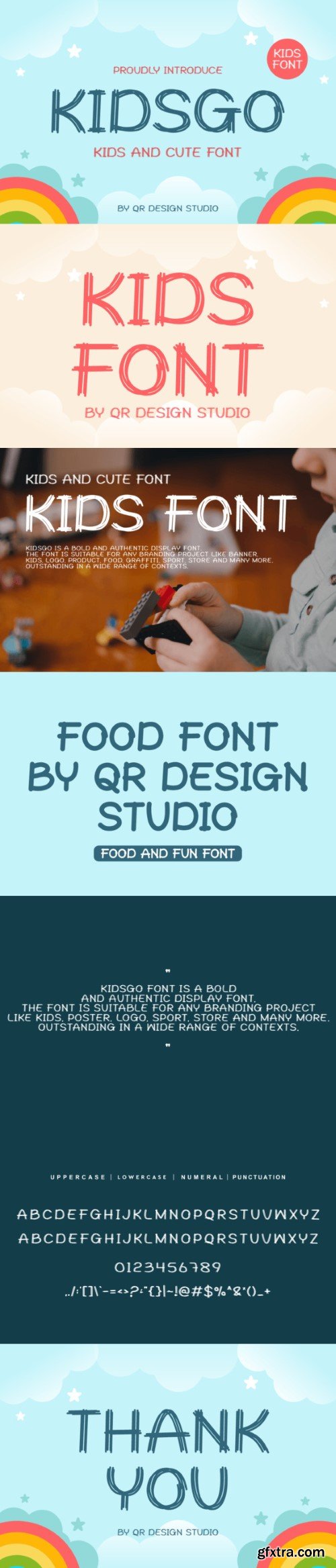
KidsGo Font
Kidsgo Font is a bold and authentic display font.
The font is suitable for any branding project like kids, poster, food, logo, sport, and many more.
Outstanding in a wide range of contexts.